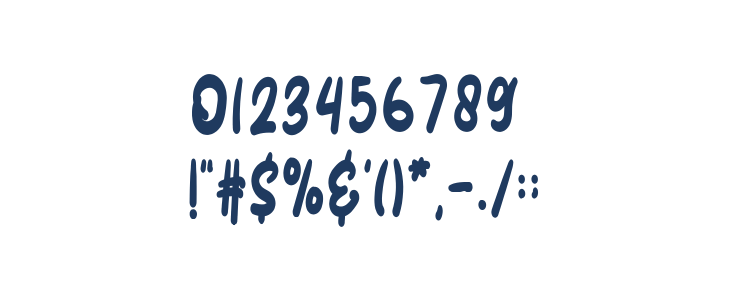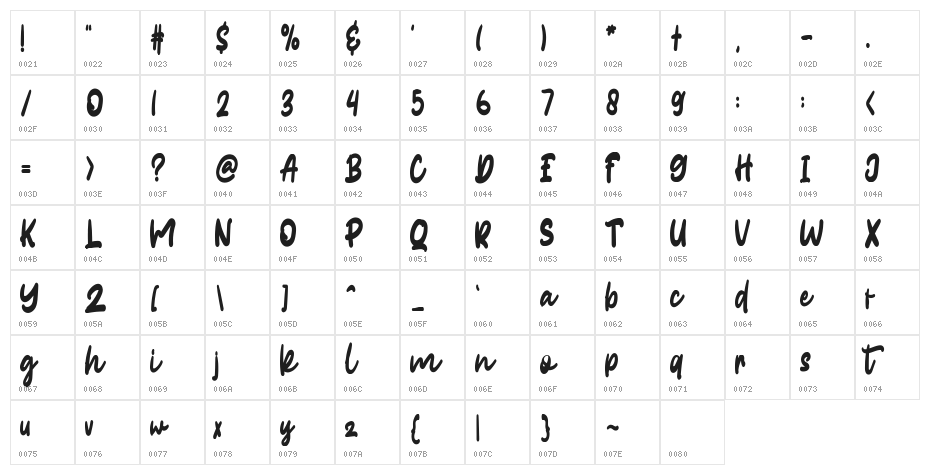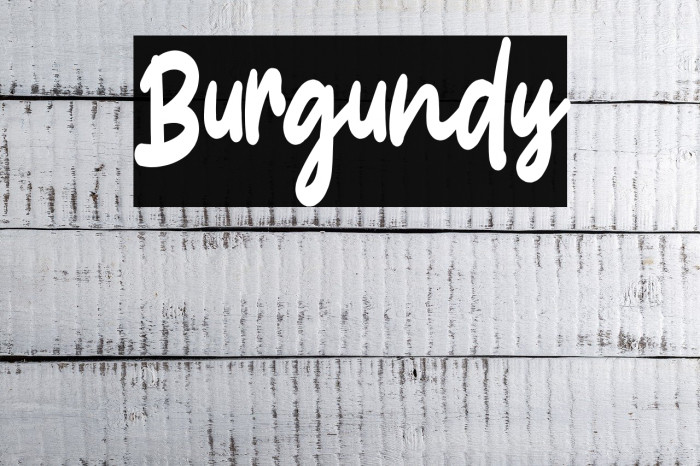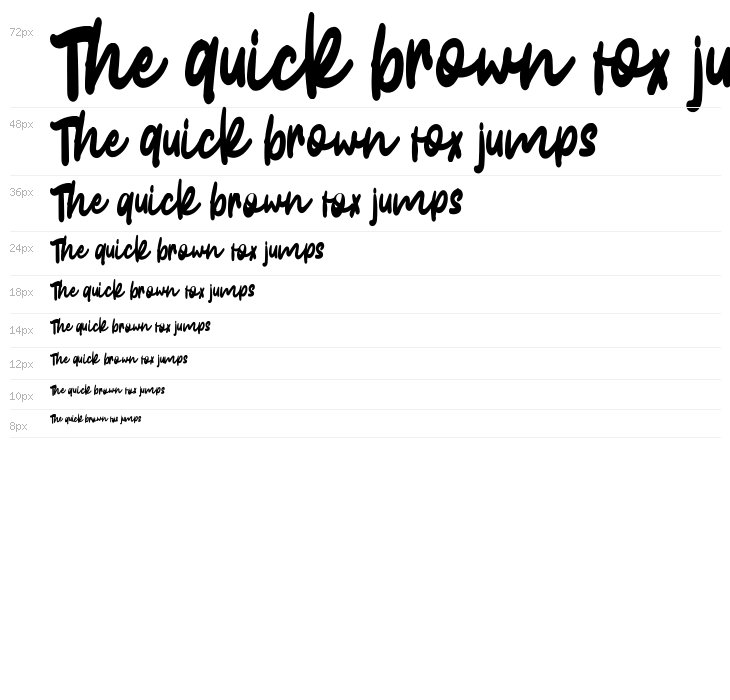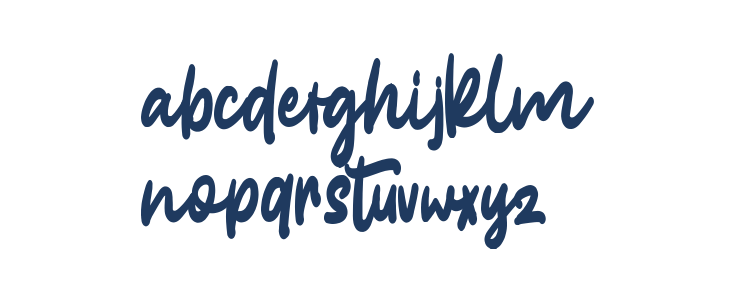
Burgundy Font
Burgundy Description
This font features a bold and expressive handwritten style, characterized by its fluid and dynamic strokes. The letters are slightly slanted, giving a casual yet energetic feel. The uppercase and lowercase characters maintain a consistent style, with rounded edges and a playful bounce. The numbers and special characters complement the alphabet with similar boldness and flair. This font exudes a sense of creativity and spontaneity, making it ideal for projects that require a personal touch.
| Proposed Projects | Ideal for greeting cards, creative branding, social media graphics, and personal invitations. |